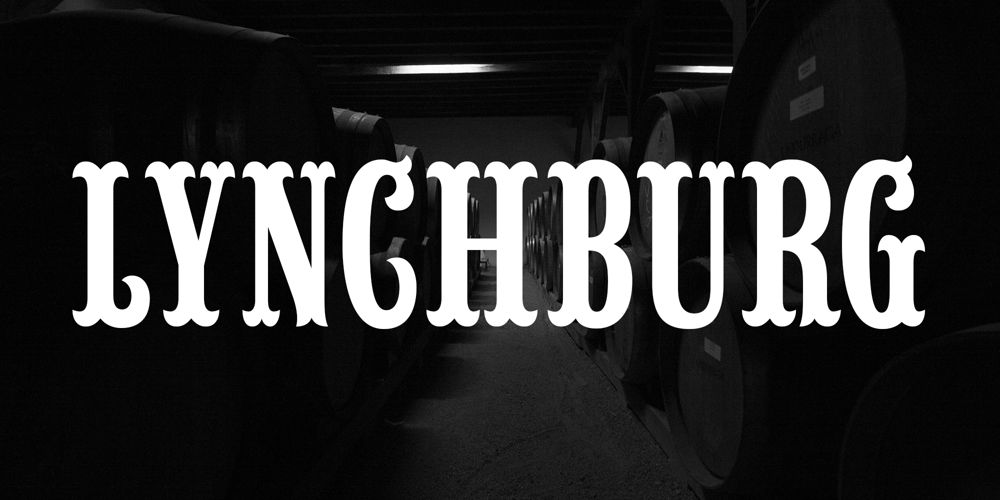
Lynchburg Font Family was designed by Michael Hagemann and published by FontMesa. Lynchburg contains 4 styles and family package options. Lynchburg was inspired by the Jack Daniel’s Green Label Whiskey logo. This is an all new version of Lynchburg for 2024, which includes a taller lowercase, small caps and italics.With the new additions Lynchburg is much more versatile for your next project, which may include music album covers, barbeque restaurant logo, cheeseburger menus, brewery label or chili cookoff.The FontMesa fonts that were inspired by famous company logos, although accurate in detail, are not considered official artwork for the company or product logo they were patterned after.